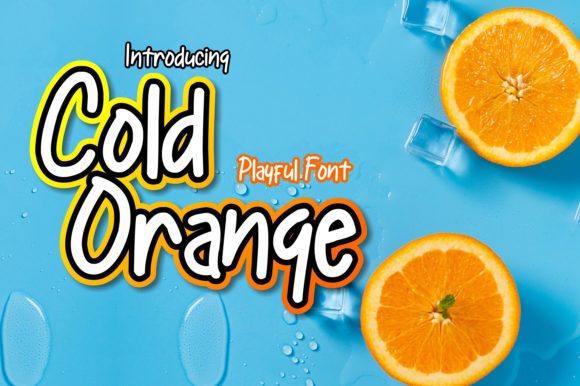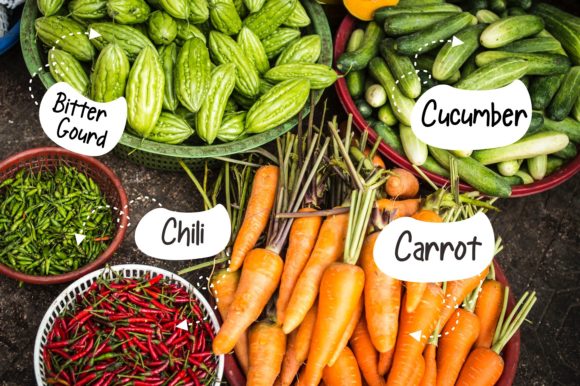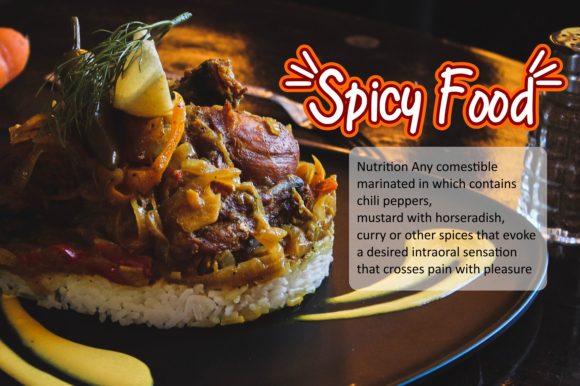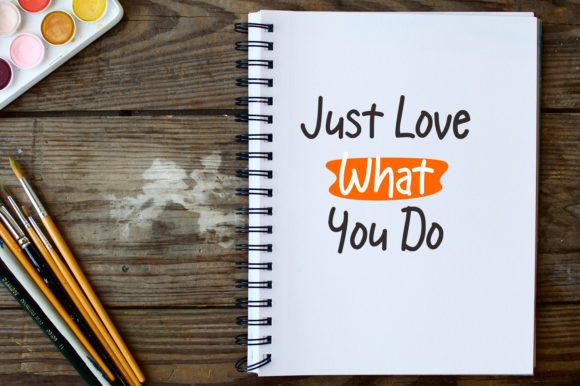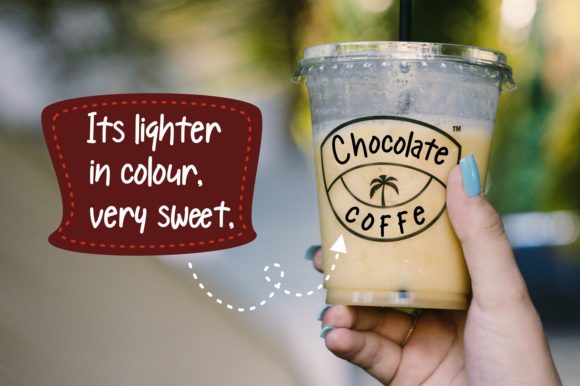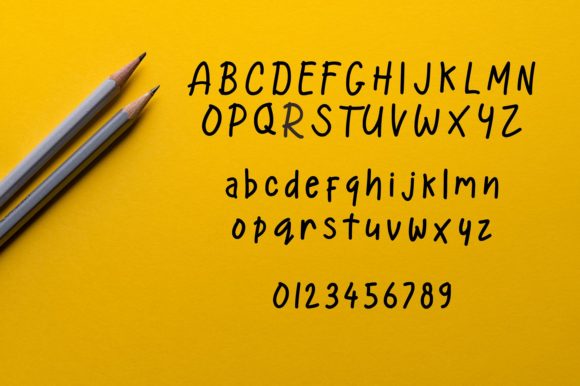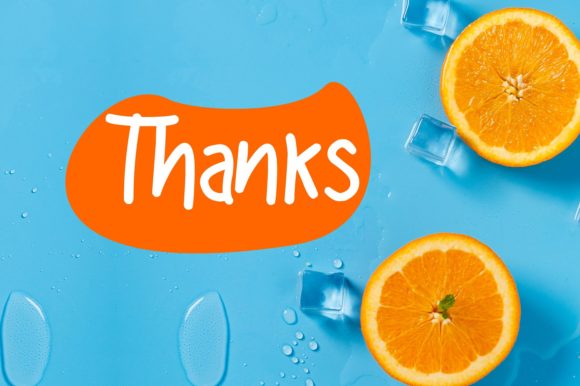
Cold Orange Font
About Cold Orange Font
Cold Orange Playful is a sweet and incredibly cute display font that’s great for giving any design project that playful and childlike feel.